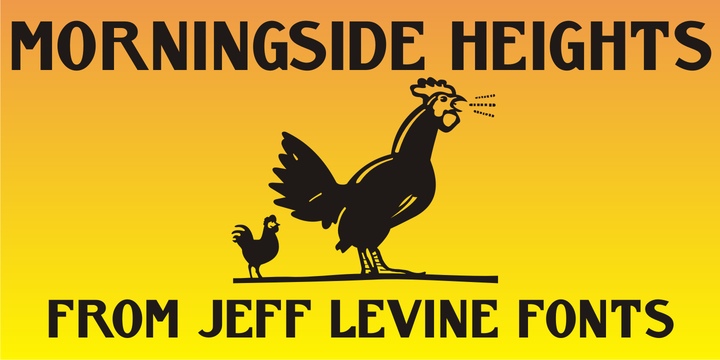
Morningside Heights JNL Font
Morningside Heights JNL Font is perfect for New York-themed restaurants, urban neighborhood branding, jazz club signage, vintage apartment building logos, metropolitan museum materials, city tourism promotions, brownstone development advertising, Manhattan lifestyle magazines, historic district signage, and sophisticated urban event invitations.
What makes Morningside Heights JNL Font so exciting is its remarkable ability to capture the sophisticated urban elegance and intellectual atmosphere of one of New York City's most prestigious neighborhoods through letterforms that seem to echo with the footsteps of scholars and the rhythm of city life. This distinguished typeface draws inspiration from the historic charm and academic prestige of Morningside Heights, featuring characters that embody the perfect blend of metropolitan sophistication and scholarly tradition. The font's refined design elements perfectly balance urban energy with intellectual gravitas, making it an essential choice for projects celebrating the unique character and cultural richness of New York's most esteemed neighborhoods.
Morningside Heights JNL Font comes in multiple font families including Regular, Bold, Light, Italic, Bold Italic, Academic, Urban, and Classic variations. Each family member maintains the core metropolitan characteristics while offering different sophistication levels and stylistic approaches to suit various urban design requirements.
The scholarly precision in Morningside Heights JNL Font makes it particularly suitable for academic institutions, cultural organizations, and upscale urban businesses where conveying intellectual credibility and metropolitan sophistication is essential for connecting with educated audiences. Its distinguished letterforms maintain excellent readability while preserving the urban elegance that appeals to sophisticated New Yorkers and cultural enthusiasts.
Urban marketing professionals recognize how Morningside Heights JNL Font transforms ordinary promotional text into sophisticated invitations to experience the best of New York's intellectual and cultural offerings. The typeface's distinguished character set includes special urban symbols and academic elements that enhance the overall metropolitan atmosphere of any New York-focused project.
For creative professionals serving Manhattan businesses, educational institutions, and cultural organizations, Morningside Heights JNL Font serves as the perfect foundation for establishing memorable visual identities that capture the essential qualities of urban sophistication, intellectual excellence, and cultural richness that define New York's most prestigious neighborhoods.